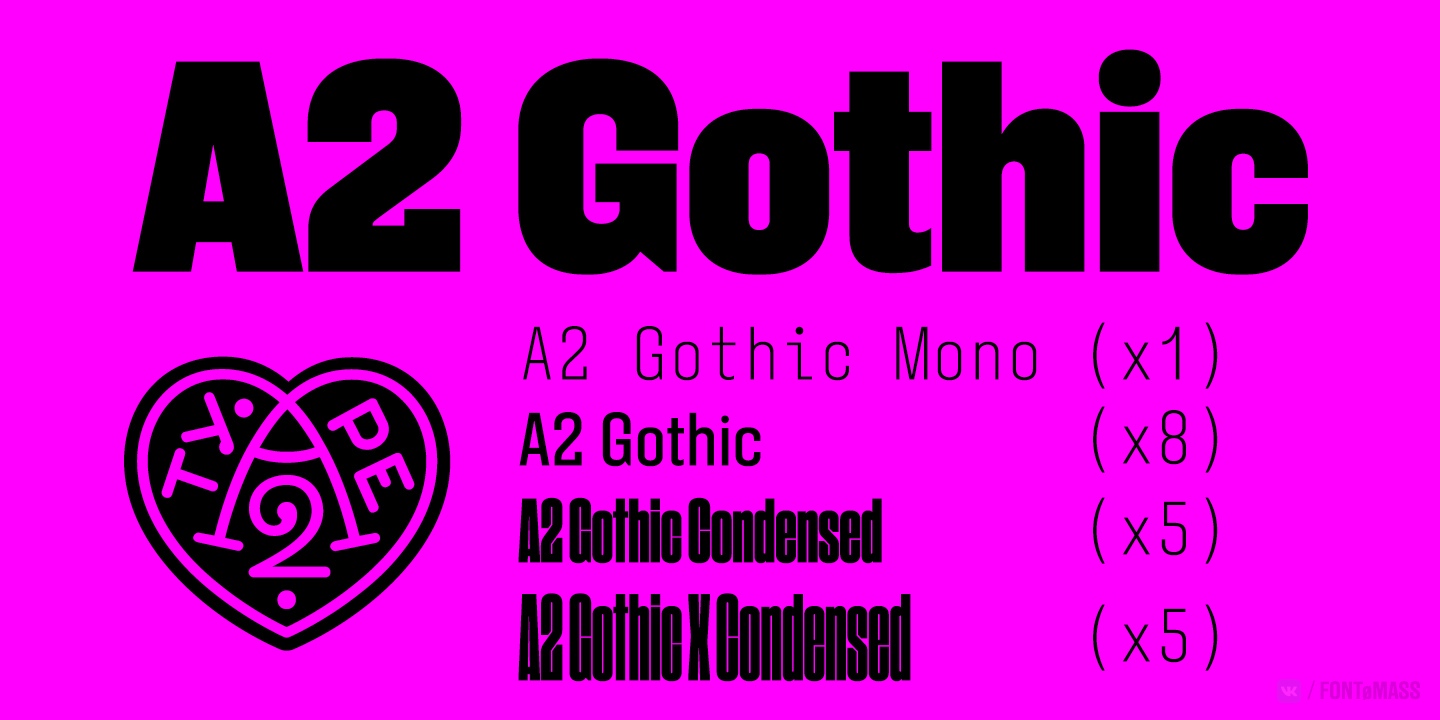
A2 Gothic Font
A2 Gothic Font is perfect for modern corporate branding, contemporary architecture signage, minimalist web design, tech company logos, clean magazine layouts, professional presentation slides, streamlined user interfaces, and sophisticated business communications.
What makes A2 Gothic Font exciting is its architectural precision that embodies clean modernism and systematic efficiency with geometric clarity and professional sophistication. The font features structured letterforms with precise angles and contemporary proportions that evoke steel frameworks, glass facades, and the refined simplicity of modern architectural design. Its distinctive gothic styling and systematic appeal communicate professionalism, structural integrity, and contemporary excellence, making every message feel engineered for clarity and built to exacting modern standards.
The A2 Gothic Font family includes regular weight with uppercase and lowercase letters, numerals, punctuation marks, and comprehensive special characters. Premium versions often feature multiple weights and systematic alternates that enhance the architectural, professional aesthetic perfect for corporate and design applications.
The systematic character of A2 Gothic Font makes it particularly valuable for architectural firms, engineering companies, and modern corporate brands. Its excellent readability across digital and print applications ensures professional communications remain clear while maintaining the distinctive contemporary aesthetic that appeals to audiences seeking modern solutions and systematic approaches.
Corporate brand designers appreciate how A2 Gothic Font effortlessly conveys professional competence and modern sophistication. The font's architectural proportions and systematic details create polished brand materials that establish trust with audiences who value structural thinking, professional reliability, and the clean efficiency of contemporary business practices.
The versatile professionalism of this typeface extends to consulting services, technology platforms, and modern manufacturing where systematic credibility enhances competitive positioning. A2 Gothic Font Free Download provides creative professionals with an essential tool for developing memorable, structure-focused designs that resonate with audiences who embrace modern efficiency, professional excellence, and the architectural precision of contemporary business solutions in today's competitive marketplace.